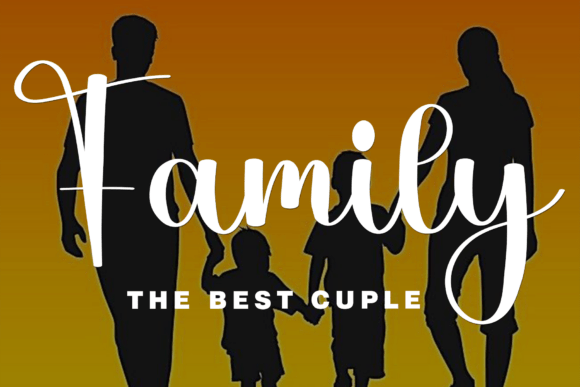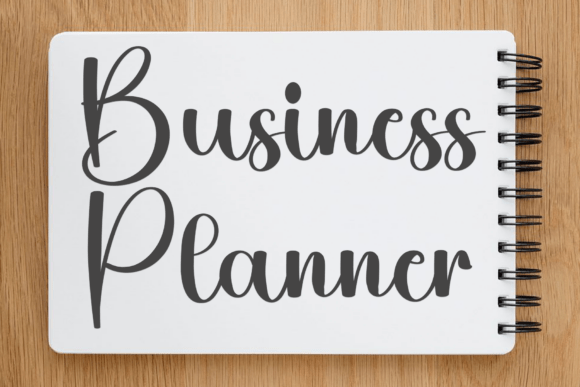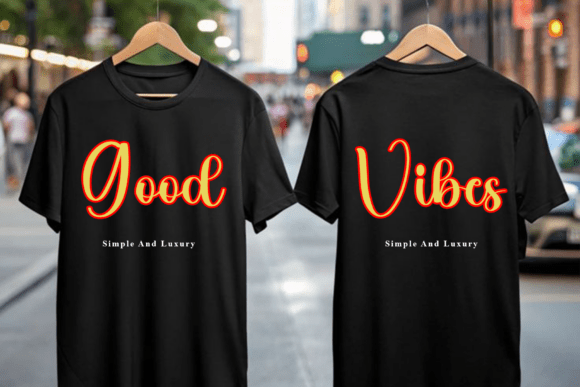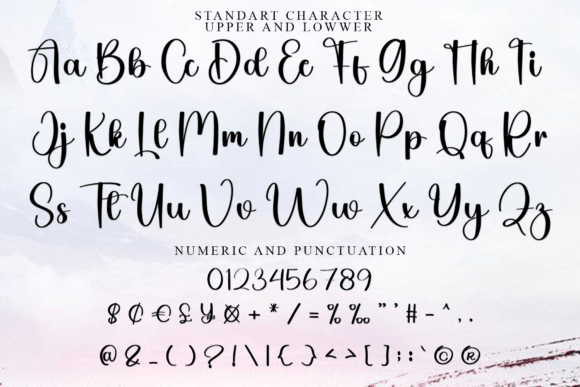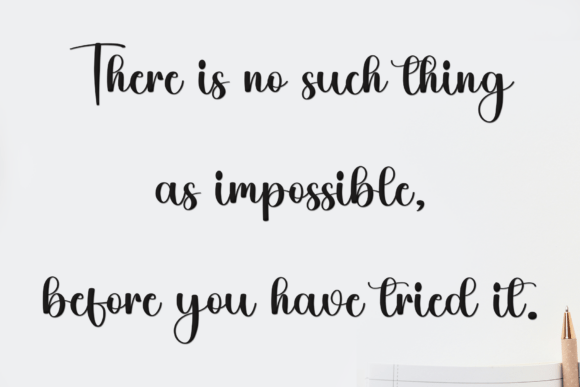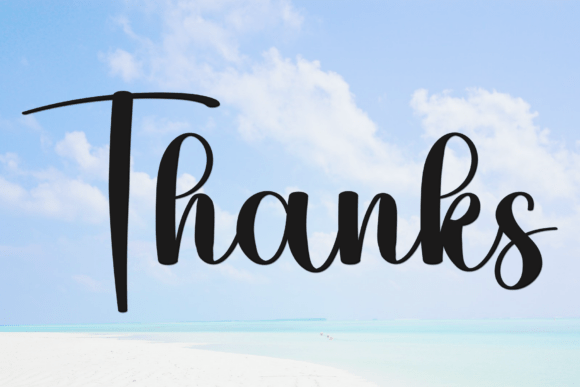
Ashley Font: Add a Touch of Holiday Magic to Your Designs
The holiday season is upon us, and what better way to get into the spirit than with a festive and merry typeface? Look no further than the Ashley Font, a decorative and whimsical font that’s perfect for adding a touch of enchantment to your designs. Whether you’re creating greeting cards, gift tags, or holiday-themed projects, this font is sure to bring a cheerful and nostalgic ambiance to your words.
What Makes Ashley Font So Special?
Ashley Font is a unique and eye-catching typeface that’s specifically designed to capture the spirit of the holiday season. Its decorative elements and whimsical flair make it the perfect choice for designers and crafters looking to add a touch of magic to their projects. With its intricate details and ornate features, this font is sure to make your designs stand out from the crowd.
Ashley Font is perfect for a wide range of holiday projects, from greeting cards and gift tags to holiday-themed party invitations and decorations. Its festive and merry vibe makes it an ideal choice for designers and crafters looking to create holiday-themed content that’s both fun and engaging. Whether you’re creating digital or print materials, this font is sure to add a touch of holiday cheer to your designs.
Tips for Using Ashley Font
Here are a few tips for getting the most out of Ashley Font:
- Use it for headlines and titles to add a touch of holiday magic to your designs.
- Experiment with different colors and textures to give your designs a unique and festive look.
- Pair it with other fonts to create a unique and eye-catching typography combination.
- Use it for digital and print materials, from social media graphics to holiday party invitations.
Why Designers and Crafters Love Ashley Font
Designers and crafters love Ashley Font for its unique and festive vibe, as well as its ease of use. Here are a few reasons why:
- It’s perfect for holiday-themed projects, from greeting cards to holiday party invitations.
- Its decorative elements and whimsical flair make it a standout typeface.
- It’s versatile and can be used for both digital and print materials.